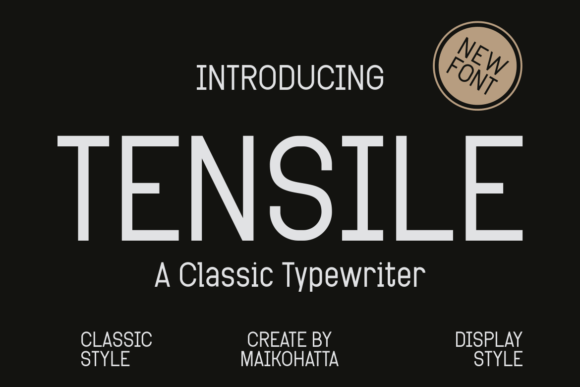
Introducing Tensile Font, the perfect choice for all vintage book lovers and typography aficionados! This captivating sans serif font, created by the talented maikofarazhatta, seamlessly combines traditional serif elements with the nostalgic aesthetics of a typewriter.
Immerse yourself in the charm of the past as Tensile Font brings to life a classic feel that is truly timeless. Whether you're designing a book cover, poster, or logo, this font will effortlessly transport your audience back to an era of elegance and sophistication.
With its unique retro and vintage impression, Tensile Font adds a touch of nostalgia to any design project. Imagine the excitement of your readers as they delve into your vintage book, their eyes instantly drawn to the captivating typography that Tensile Font provides. Its eye-catching appeal will have them hooked from the very first glance.
This font is not just visually stunning, but also incredibly versatile. Its clean lines and balanced proportions make it suitable for a wide range of applications. From wedding invitations to branding materials, Tensile Font adds a touch of class and refinement to every project.
But Tensile Font is more than just a font – it's an emotional journey. It evokes a sense of longing for a simpler time, a time when each word was meticulously crafted with care and attention. Its nostalgic charm sparks curiosity and captures the imagination, making it a must-have for anyone seeking to create a truly memorable design.